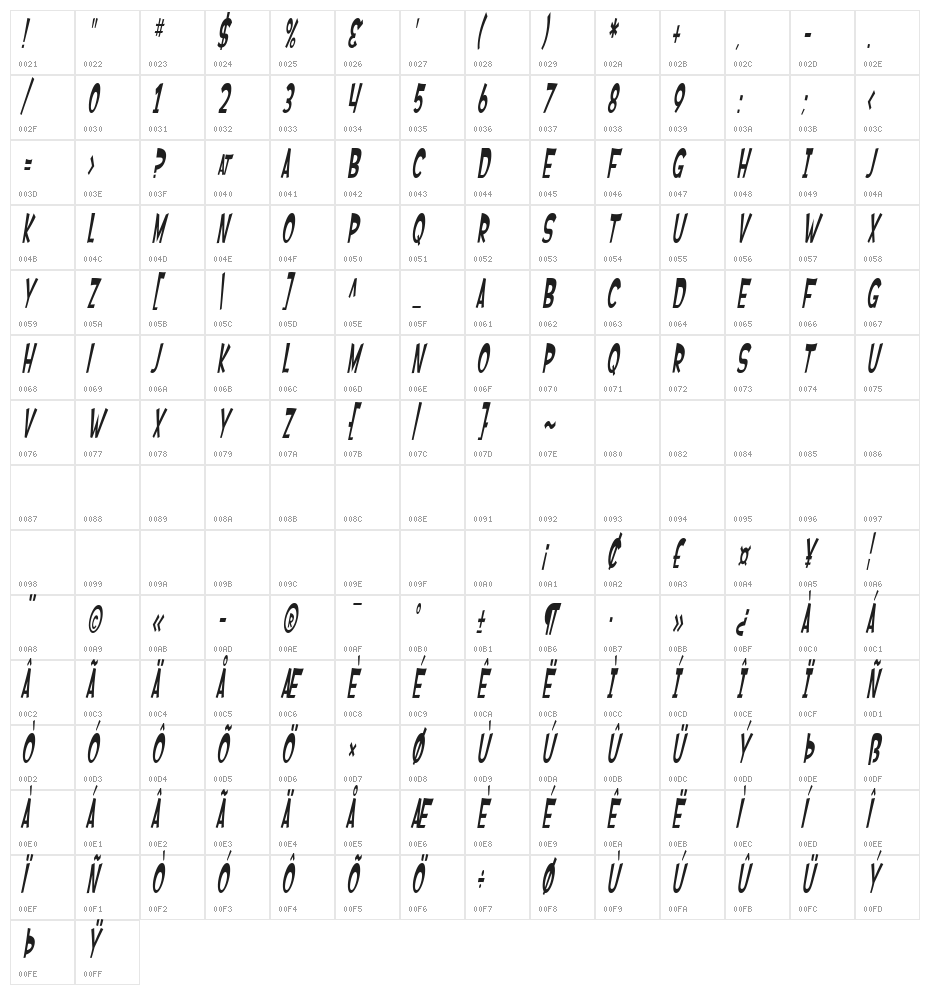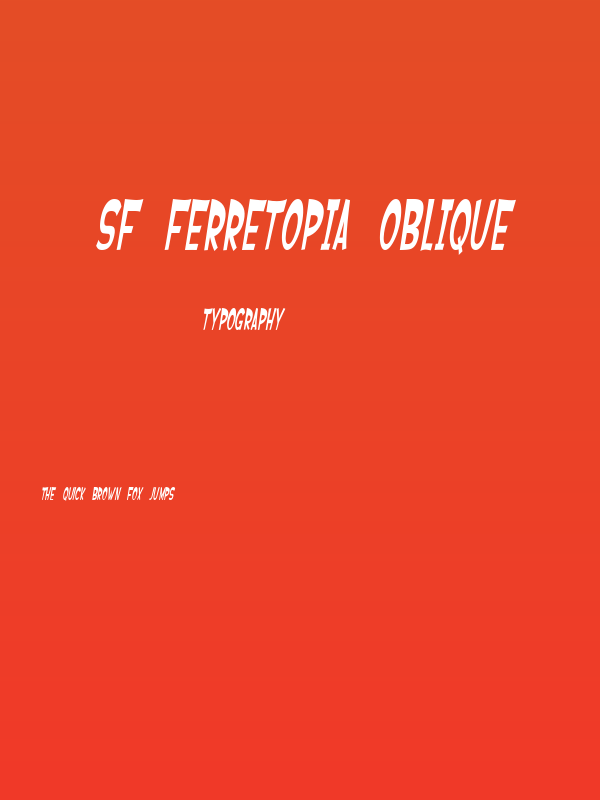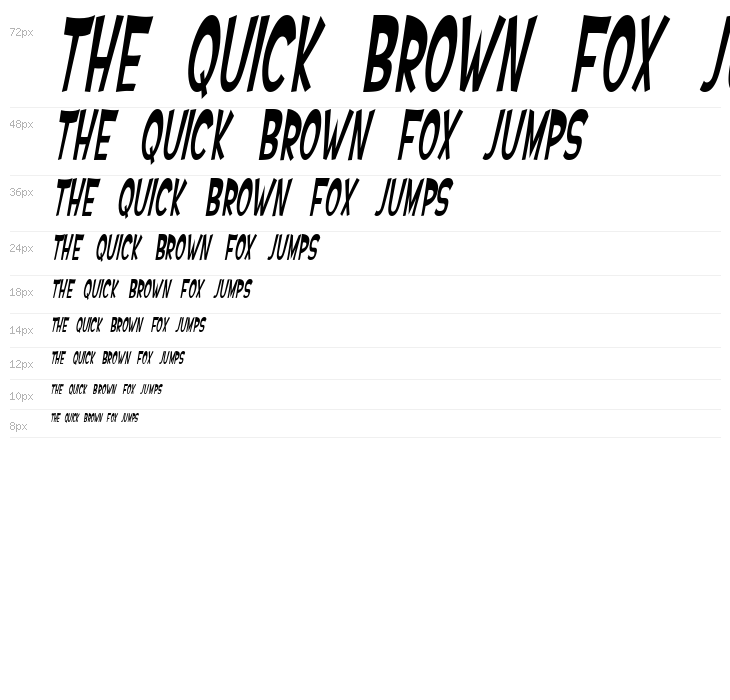
SF Ferretopia Oblique Font
SF Ferretopia Oblique Description
This font features a bold and dynamic oblique style, characterized by its forward-slanting letters that convey a sense of motion and energy. The uppercase and lowercase letters are designed with a consistent slant, creating a cohesive and modern appearance. The numerals and special characters maintain this slant, ensuring uniformity across all glyphs. The strokes are thick and consistent, providing a strong visual impact, while the spacing between characters is tight, enhancing the compact and energetic feel of the text.
| Proposed Projects | Ideal for projects that require a bold statement, such as posters, headlines, branding, and advertising materials. |